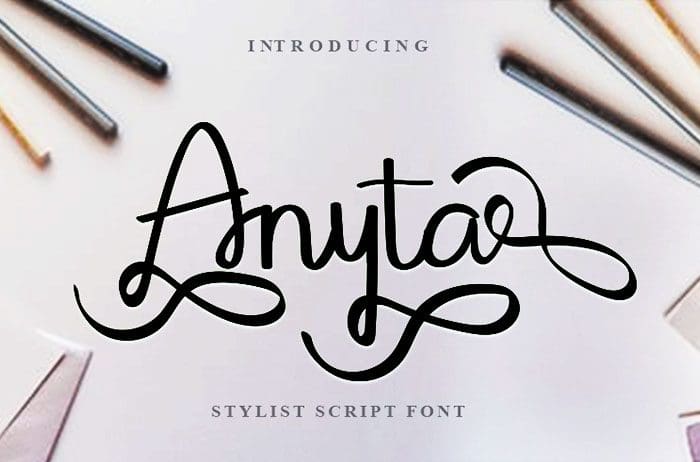
Free Anyta Script Font
Anyta Script Font
Free Anyta script font, unique and attractive. Fall in love with its authentic feel and use it to create gorgeous wedding invitations, beautiful stationary art, eye-catching social media posts, and cute greeting cards. Designed this font by Inermedia Studio. You can also search more freeĀ Script Fonts.